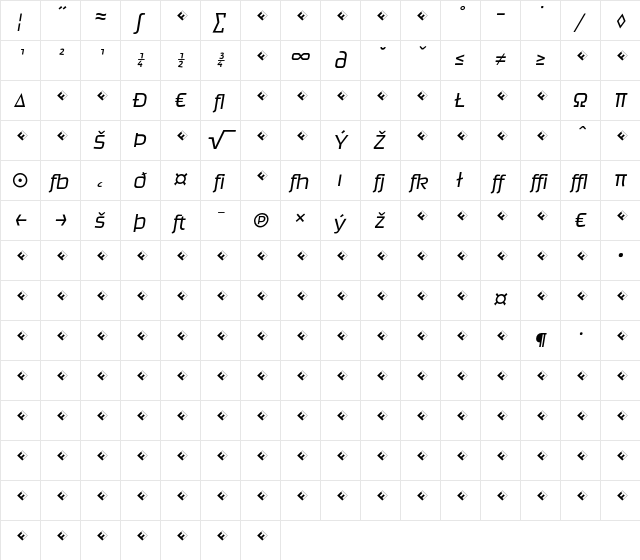
Ginger-LightItalicExpert Regular Font Preview
Design Context for Ginger-LightItalicExpert Typeface
Ginger-LightItalicExpert is a composed and adaptable typeface that performs quietly and consistently across a wide range of design contexts. Its italic angle brings a sense of urgency and motion to the letterforms. The delicate stroke weight brings airiness and refinement to layouts.
Pro Tip: Try Ginger-LightItalicExpert for annotation and caption copy alongside an upright companion — the contrast in angle creates a dynamic but ordered typographic system.